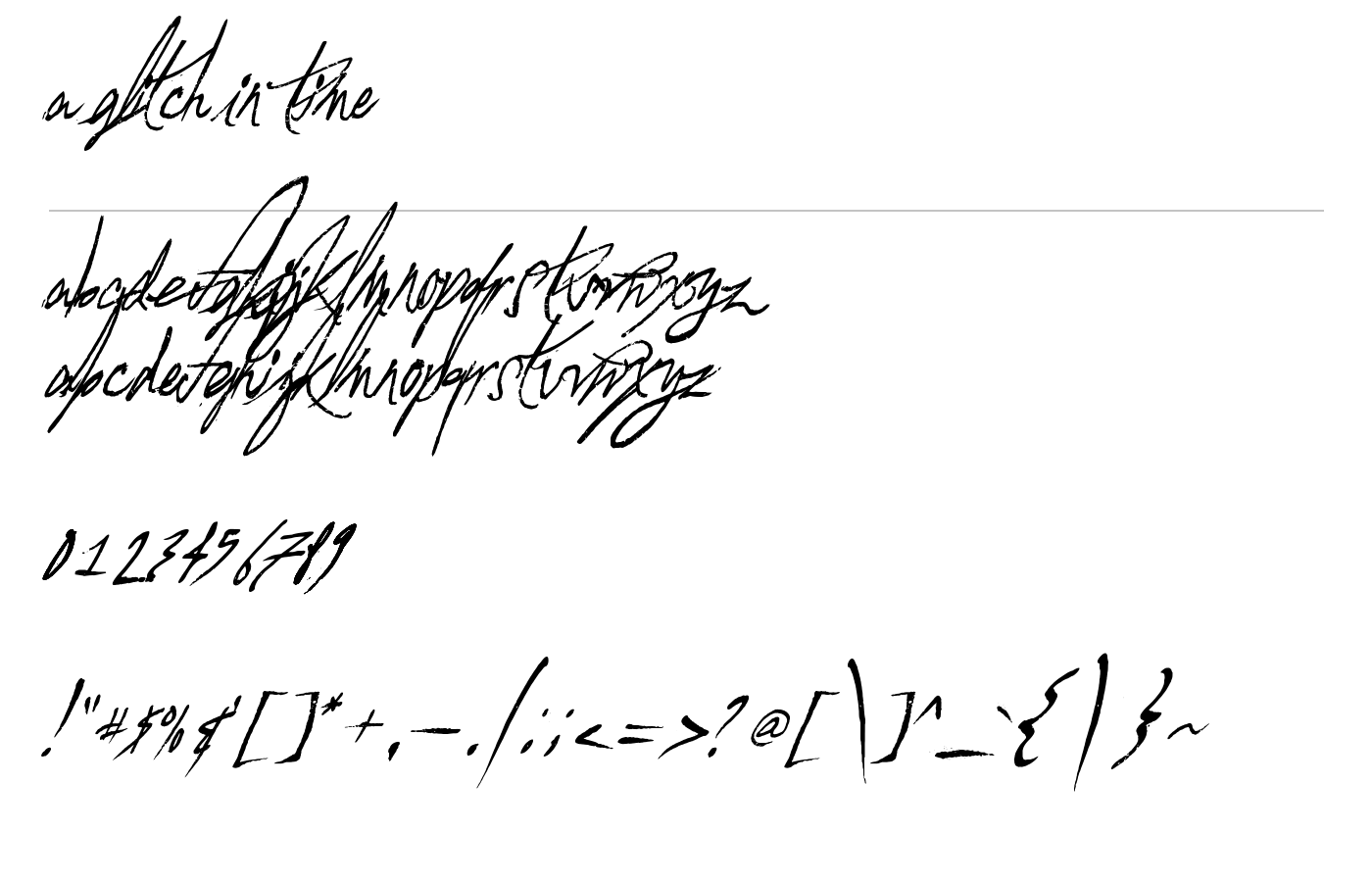
A Glitch In Time is a highly expressive, handwritten script font that conveys a raw, frantic energy with its erratic, overlapping strokes and jagged angles. Its tall, narrow letterforms and uneven baseline create a chaotic yet artistic feel, making it perfect for edgy, avant-garde designs, alternative branding, or creative projects that seek to evoke a sense of urgency and unconventional style. This font works best in headlines, posters, or album covers where its unique personality can truly stand out.
A Glitch In Time Font
About A Glitch In Time Font